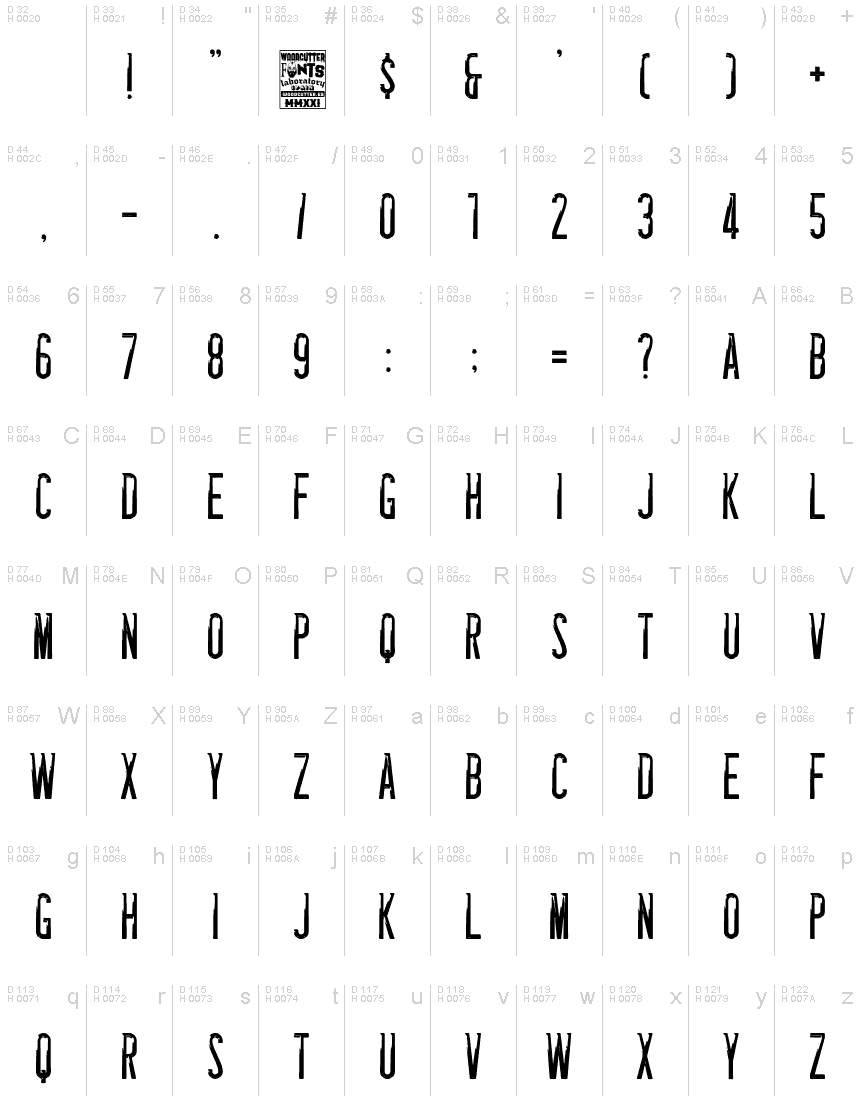
Mujeres Azules
Mujeres Azules, the creation of Woodcutter, is a captivating display font that adds a touch of intrigue to any project. With its eroded style and semi-light weight, this font exudes a sense of rustic elegance that can be used in various creative endeavors.
Its extra-condensed width makes it perfect for eye-catching headlines and attention-grabbing logos. Whether you're designing vintage-inspired posters for a music festival or creating an edgy brand identity for a tattoo studio, Mujeres Azules will bring uniqueness and character to your projects.